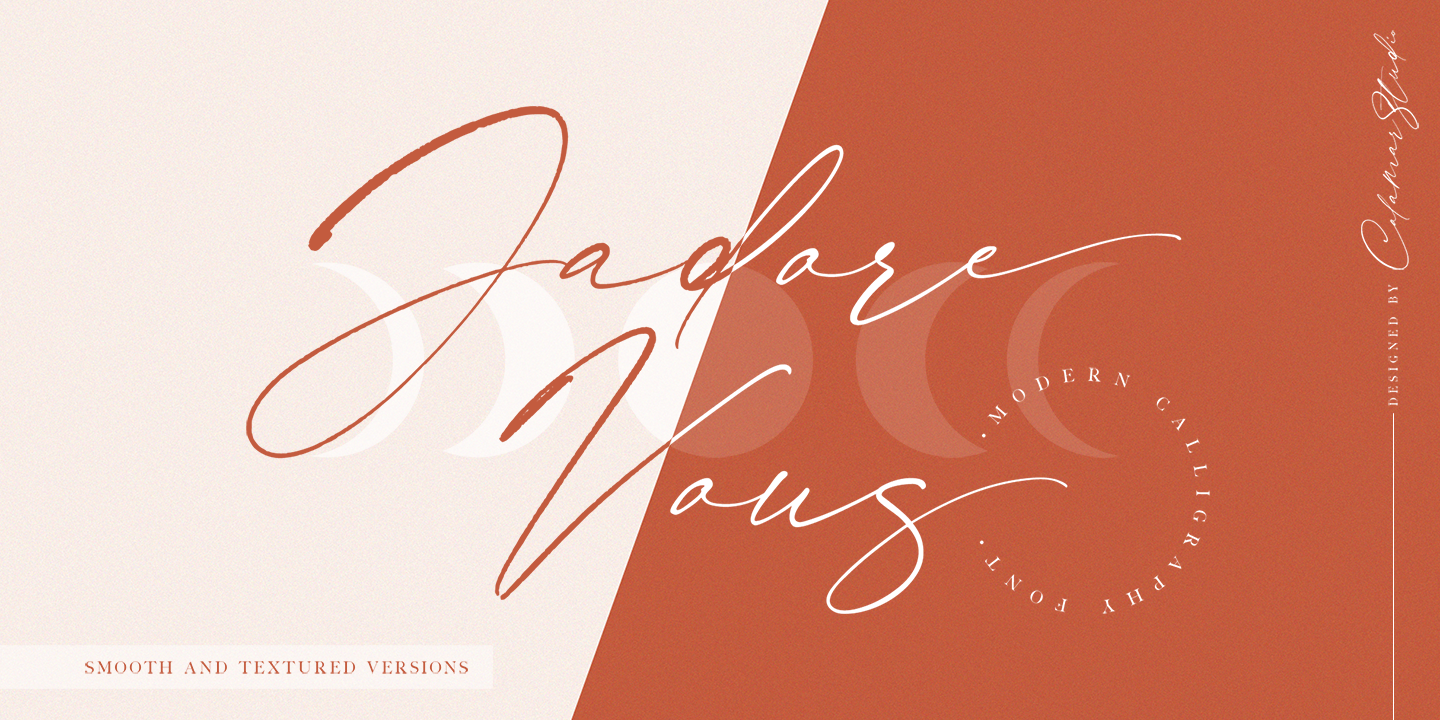
Jadore Vous Font Free Download is a romantic and elegant script font that exudes charm, sophistication, and a touch of Parisian flair. Please note that you must purchase this font for commercial use. It is available as a free download for testing and personal use only.
You can use Jadore Vous Font in wedding invitations, love letters, perfume branding, romantic social media posts, fashion editorials, high-end product packaging, or even elegant restaurant menus. Its graceful strokes and flowing curves make it ideal for projects that aim to feel luxurious and heartfelt.
What makes Jadore Vous truly exciting is its emotional depth — every letter feels hand-written with love and intention. It adds an intimate, high-class feel to your work, instantly elevating any design with a soft, feminine, and timeless quality.
The Jadore Vous Font family includes several delicate styles such as Jadore Vous Regular, Jadore Vous Light, Jadore Vous Swash, and Jadore Vous Bold Script, giving you flexibility while maintaining romantic cohesion in your typographic choices.
Whether you're designing for a bridal brand, a floral boutique, or a luxury skincare line, Jadore Vous Font Free Download wraps your message in elegance and emotion. Try it today — one glance, and your audience will fall in love.